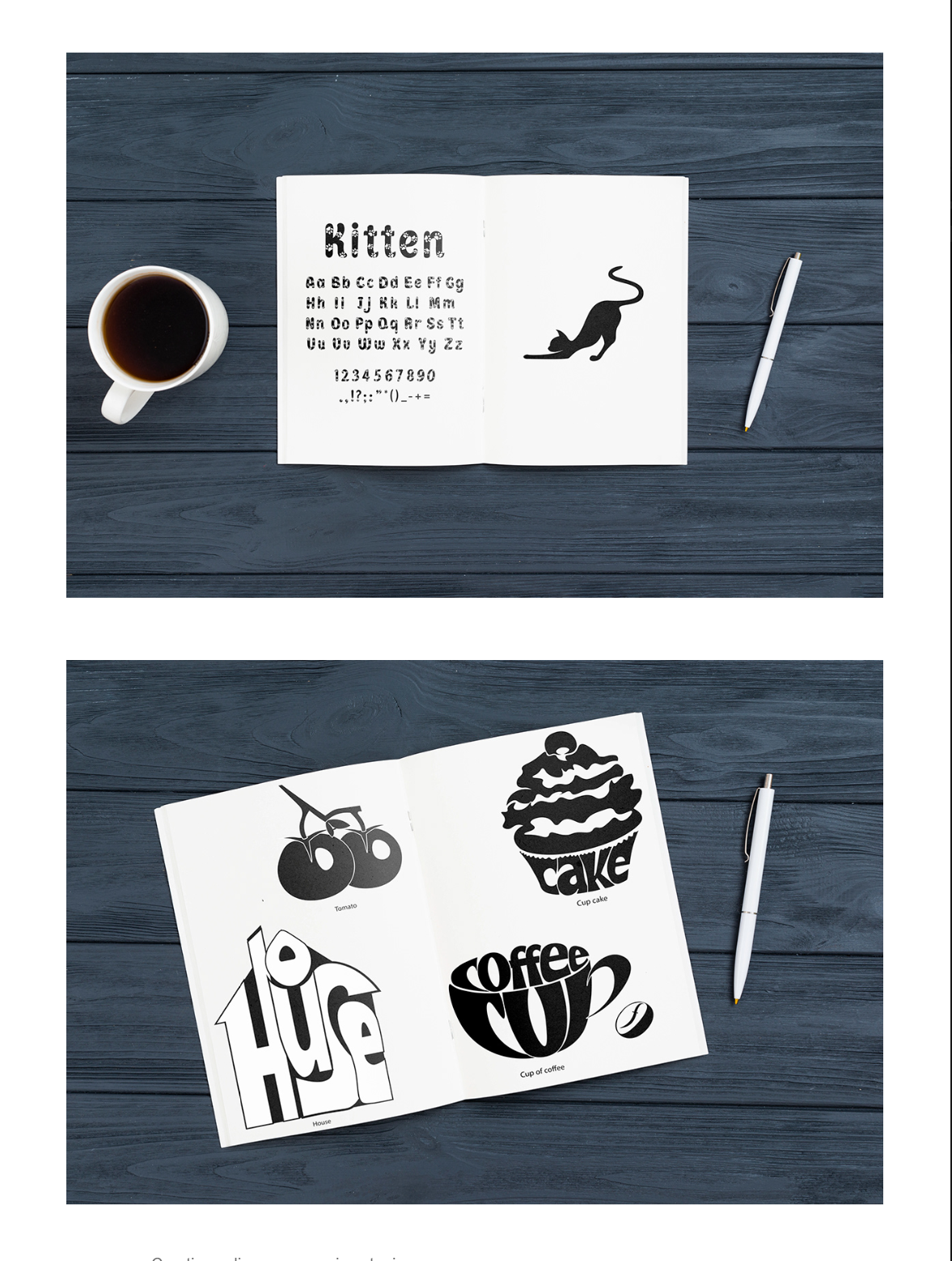
Decorative fonts and caligrams on the subject
Print DesignDecorative fonts in English. It includes the English alphabet, the numbers and the signs of the prekination.
Create caligrams in a vector from zero to a given topic.